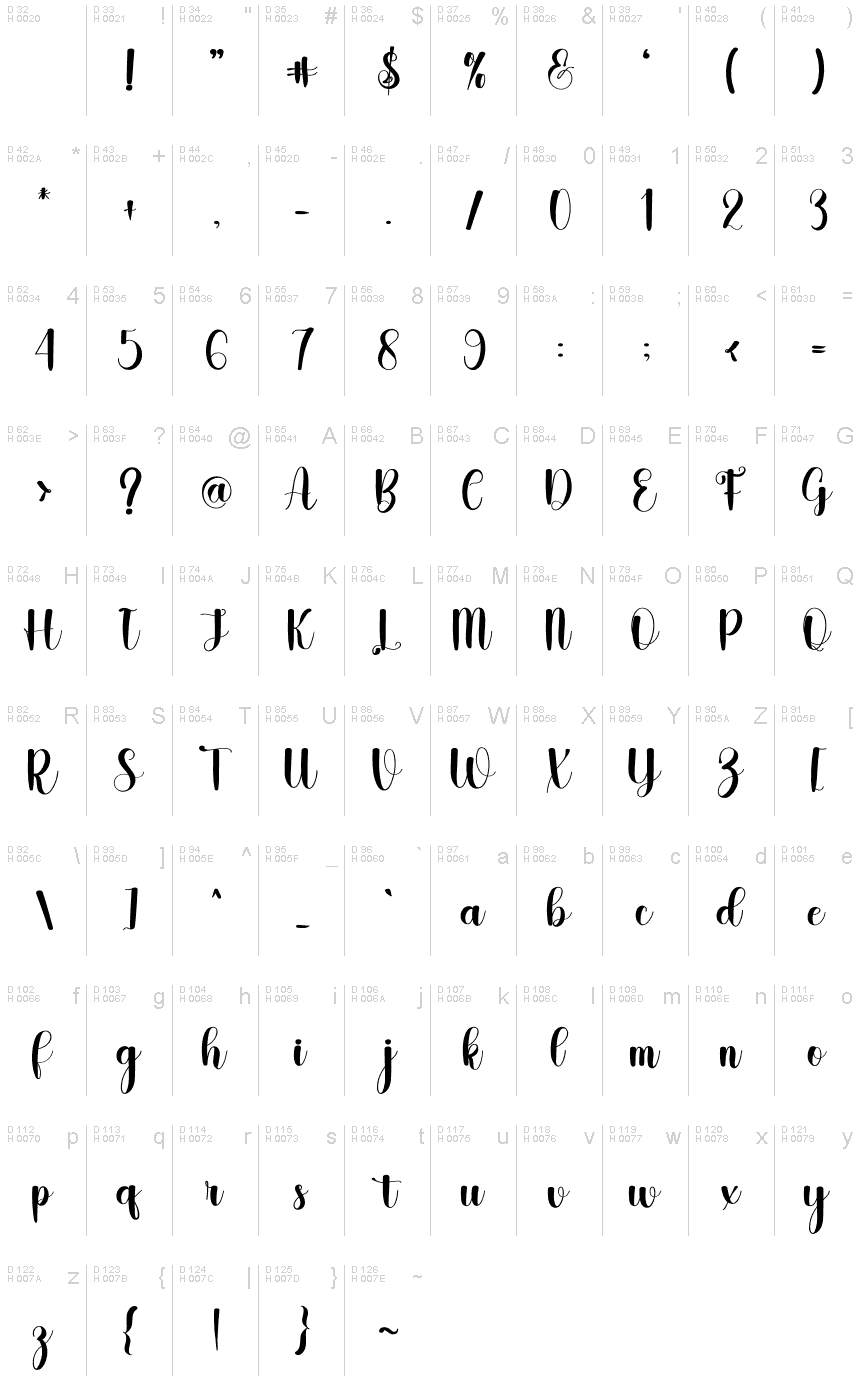
Masthan
Masthan, the captivating calligraphy font by FreshtypeINK, adds an elegant touch to any project. With its semi-bold weight, it strikes the perfect balance between sophistication and readability. Ideal for wedding invitations, luxury branding, or high-end editorial designs, Masthan exudes a refined charm that effortlessly captures attention. Its graceful strokes and flowing lines make it suitable for creating stunning logos or enhancing social media graphics. Elevate your creative projects to new heights with Masthan's exquisite calligraphic style and make a lasting impression on your audience.